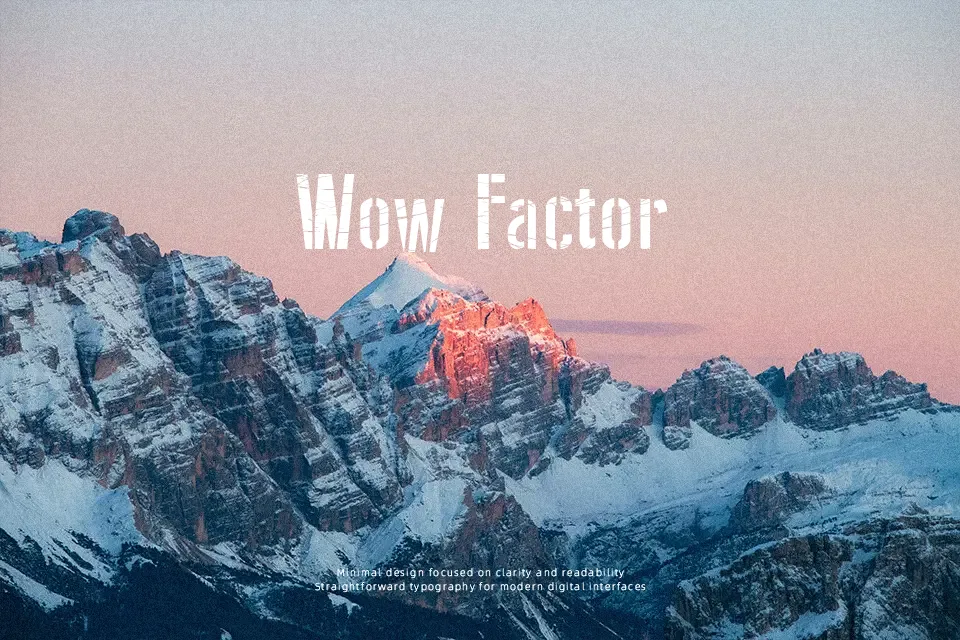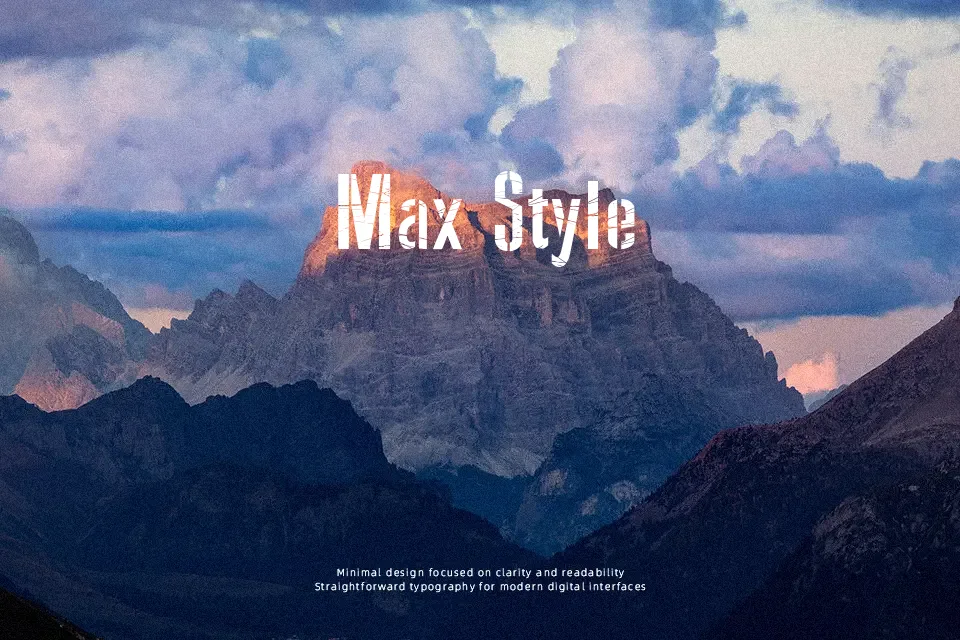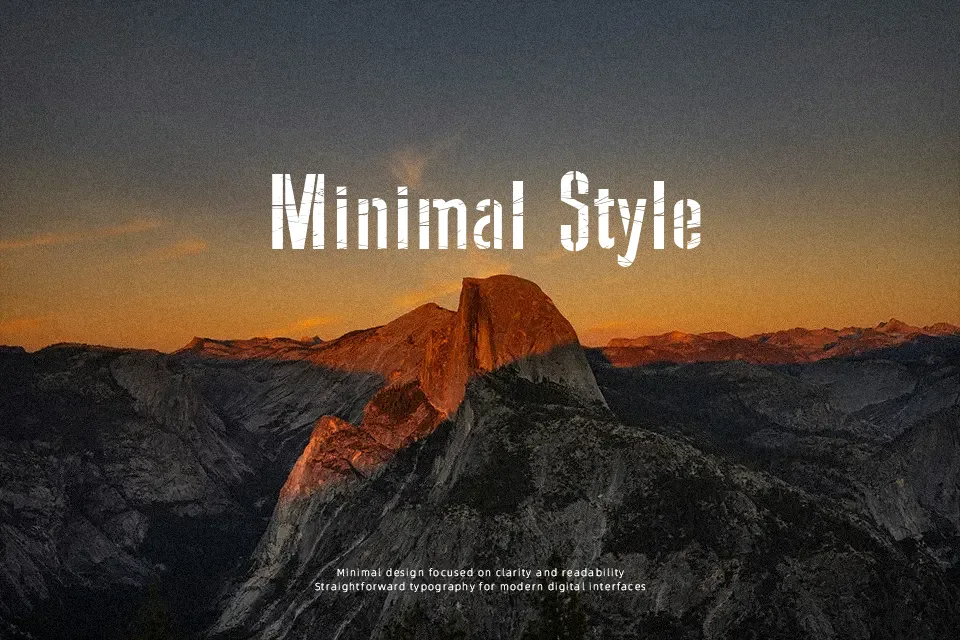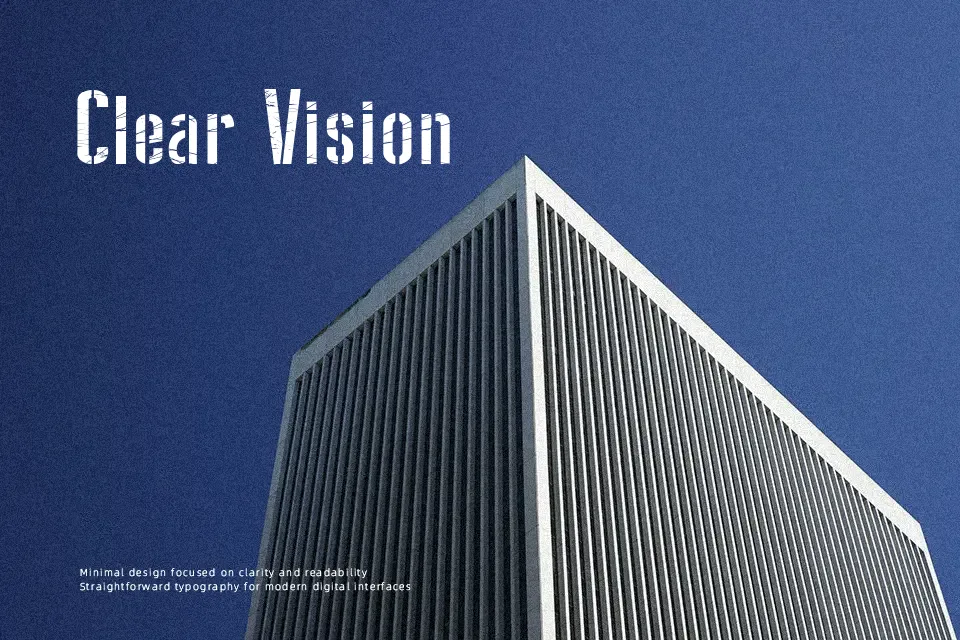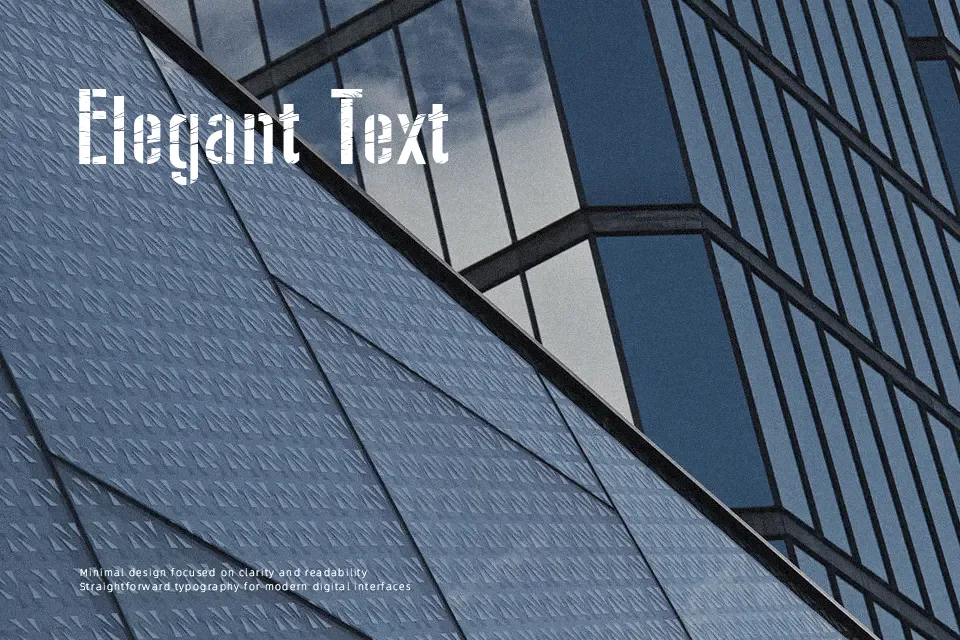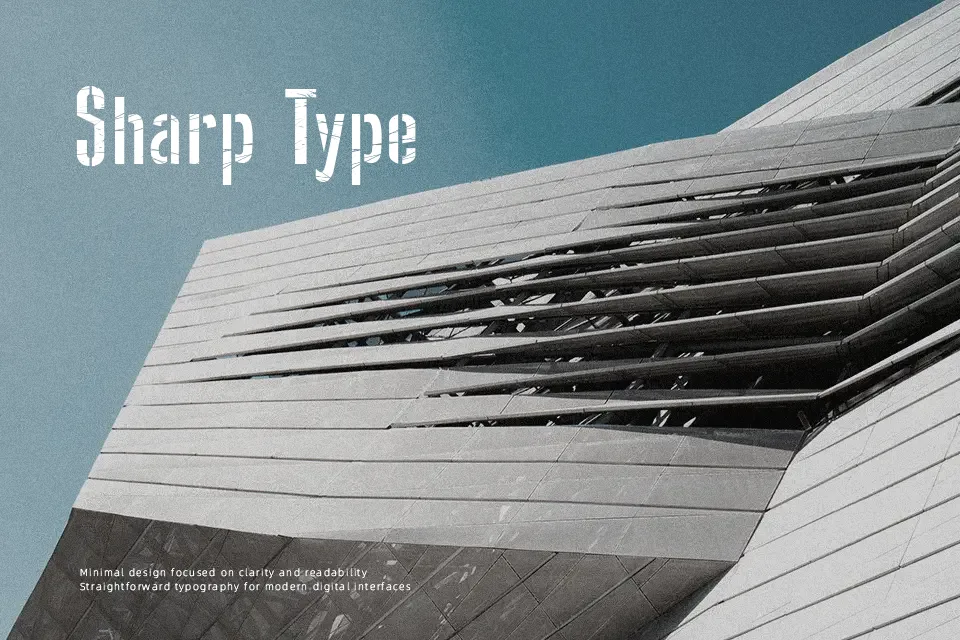
Soviet Style Cyrilic Font
Soviet Style Cyrilic Font is built upon sharp rectangular contours, uniform thick weights, and prominent vertical stencil breaks. The design maintains tight character spacing with squared modular proportions, establishing an imposing visual presence across short display phrases. At substantial headline sizes, the letterforms deliver immediate impact and clear separation between adjacent glyphs. However, the dense geometry and narrow internal counters significantly diminish legibility when applied to continuous body copy or compact interface labels. The typeface excels in stylized game menus, brutalist architectural covers, and theatrical posters where powerful, angular silhouettes enhance thematic authority rather than rapid text comprehension.
war game title screens
theatrical movie posters
vintage military apparel graphics
brutalist exhibition banners
long editorial paragraphs
mobile app navigation text
legal document body text
small product ingredient lists
Perfect for branding, film, and gaming, with a bold and display style.